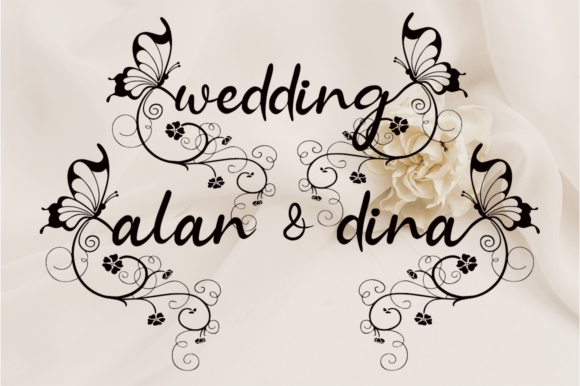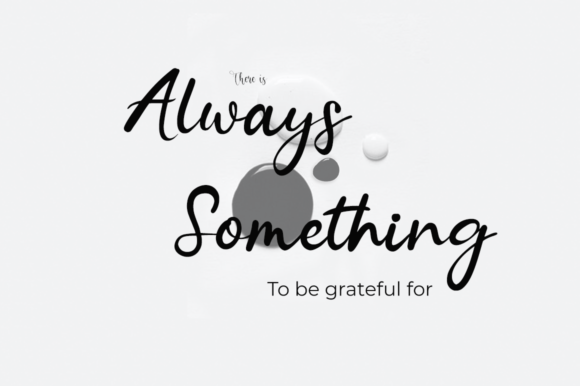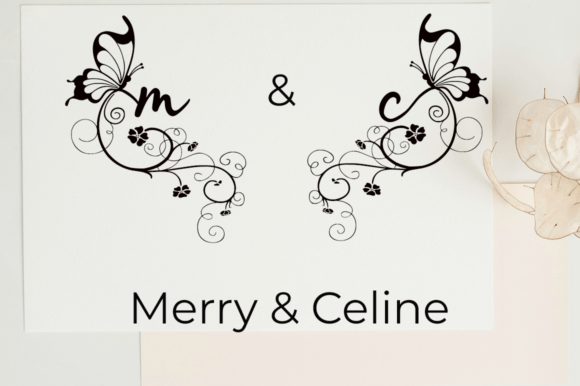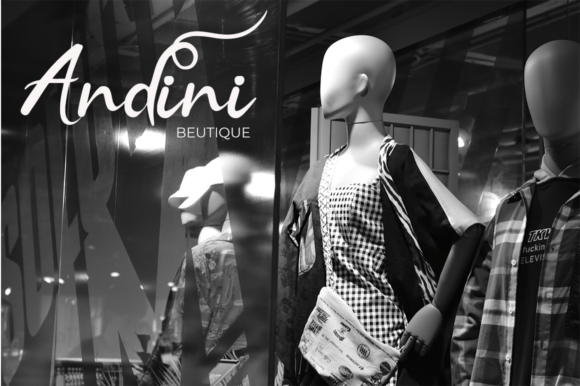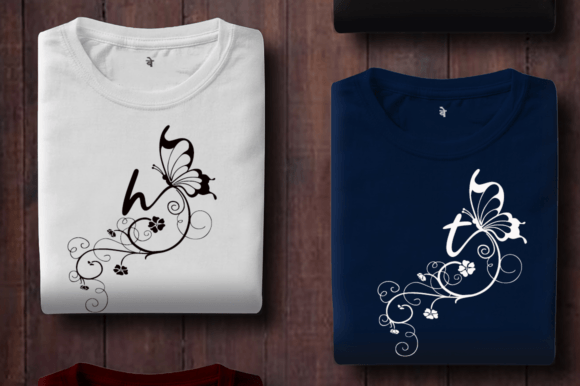
About Adelina Font
“Adelina” is a contemporary calligraphy font design that blends casual elegance with beautiful swashes. This versatile font is suitable for a wide range of applications, making it a valuable asset for designers and creatives.
With “Adelina,” you have a font that can enhance various aspects of your design work. Whether you’re working on logo design, product packaging, wedding invitations, branding materials, headlines, signage, labels, signatures, book covers, posters, quotes, or any other creative project, “Adelina” fits seamlessly into your toolkit.
The charm of “Adelina” lies in its modern calligraphy style, which exudes sophistication and creativity. The inclusion of beautiful swashes adds a touch of flair and uniqueness to your text, making it perfect for projects that require an elegant and visually captivating aesthetic.
By incorporating “Adelina” into your design work, you can elevate your projects and captivate your audience. Its versatility allows it to adapt to various contexts, ensuring that your designs stand out and leave a lasting impression.
Whether you’re a professional designer looking to add a touch of contemporary elegance to your work or someone embarking on creative endeavors, “Adelina” is a font that can help you achieve your design goals with style and impact.